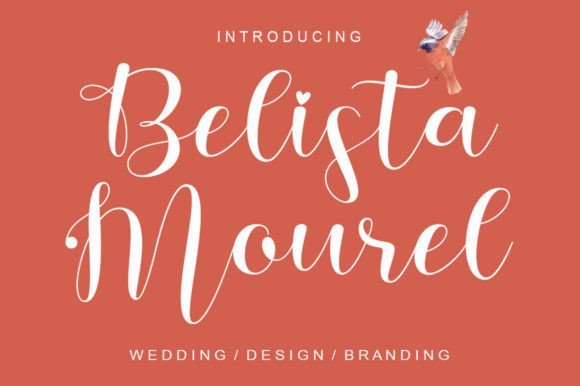
There’s something magical about scribbling down an idea by hand, watching as the words come to life in a messy, imperfect way. It’s a feeling that’s hard to replicate with digital tools, but one that designers often strive for when creating a brand or logo. That’s where the Belista Mourel Font comes in – a charming and elegant script font that captures the essence of handwritten charm.
With its natural, flowing lines and effortless feel, the Belista Mourel Font is the perfect addition to any design project. Whether you’re creating a logo, invitation, or piece of branding, this font adds a personal touch that’s hard to find with more formal fonts. And with its PUA encoding, you’ll have access to all the glyphs and ligatures you need to make your design truly special.
Belista Mourel Font Key Features
- Font Family: Belista Mourel
- Unique Characteristics: Elegant script font with a touch of mysticism, suitable for formal and creative projects
Designer Review: Belista Mourel Font
After taking a closer look at the Belista Mourel font, I must say it’s a unique and intriguing addition to any design project. ✨ The font’s elegant, handwritten feel makes it perfect for creating a sense of sophistication and refinement. The varying line widths and subtle flourishes add a touch of personality to any text.
- ✨ Beautiful, elegant handwriting feel that’s perfect for high-end projects
- ✨ Suitable for a wide range of applications, from fashion to luxury brands
- ✨ Unique, eye-catching style that sets it apart from more common fonts
However, there are a few limitations to consider. ⚠️ The font’s complexity can make it difficult to read in certain contexts, particularly at smaller sizes. Additionally, the varying line widths can sometimes lead to uneven spacing, which may require additional adjustments to achieve optimal results.
- ⚠️ May be challenging to read at smaller font sizes due to its complex, handwritten style
- ⚠️ May require additional adjustments to achieve optimal spacing and alignment
Overall, I think the Belista Mourel font is a solid choice for designers looking to add a touch of elegance and sophistication to their projects. While it may require some additional finesse to use effectively, the end result is well worth the effort.
Belista Mourel Font is ideal for creative and artistic projects, such as:
– Branding and logo design
– Infographics and data visualization
– Digital art and illustrations
– Typographic designs and quotes
– Use a combination of bold and regular font weights to create visual interest
– Experiment with different font sizes and colors to achieve a unique look
Alternatives to Belista Mourel Font for Designers
Montserrat is a sans-serif font designed by Julieta Ulanovsky. It is a modern and clean font perfect for use in digital design, particularly for headings and titles. Montserrat is more geometric and condensed compared to Belista Mourel, making it ideal for short paragraphs and titles.
Use Montserrat when you need a modern and clean font for digital design. It is more suitable for titles and headings, whereas Belista Mourel is better for body text and paragraphs.
Merriweather is a serif font designed by Eben Sorkin. It is a classic and elegant font suitable for use in print and digital design. Merriweather is more traditional and formal compared to Belista Mourel, making it ideal for formal documents and publications.
Use Merriweather when you need a classic and elegant font for formal documents and publications. It is more suitable for print design, whereas Belista Mourel is better for digital design.